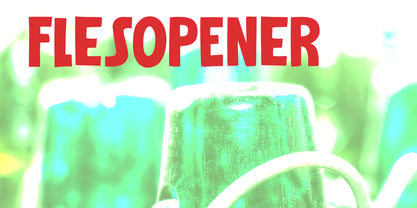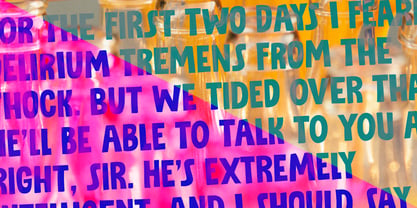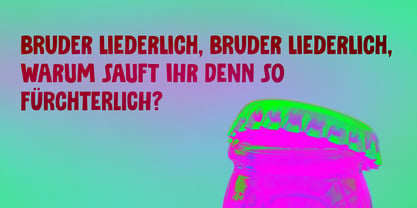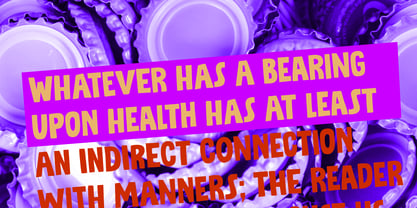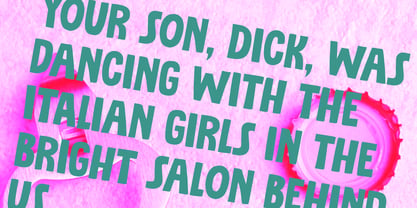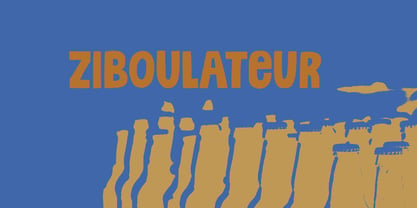
Ziboulateur Pro
by Hanoded
The Ziboulateur Pro Font Family was designed by David Kerkhoff and published by Hanoded. Ziboulateur Pro contains 2 styles and family package options. More about this family
Ziboulateur is French slang for bottle opener. The word consists of two parts: Zibula (a word from Congo-Brazzaville meaning: ‘to decork’) and the French suffix -ateur. I thought this rather creative word would be a good name for this particular font! Ziboulateur Pro is fat and fancy, charming and multilingual, so even designers in far flung places will be able to use the font. Ziboulateur Pro comes with extensive language support, including Sami and Vietnamese.
Hanoded is run by Dutchman David Kerkhoff. His fonts are a mishmash of styles, as he just creates whatever pops into his head. You will find a lot of brush fonts in his collection, as his favourite tools are brushes and Chinese ink, with cartoon style fonts and script fonts complementing his repertoire. Aside from making fonts, David occasionally guides tours in far-flung places, renovates his '30's house and tries reasoning with his wife and (teenage) kids. Not an easy task!